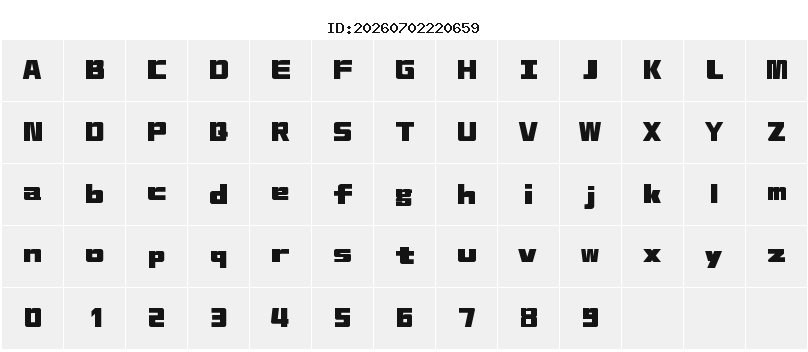
178-上首浓墨体 Preview
• Font Name: 178-上首浓墨体
• Full Font Name: 178-上首浓墨体
About 178-上首浓墨体.ttf
178-上首浓墨体.ttf is a modern, elegant sans-serif font designed for ultimate readability and visual harmony. Perfect for branding, headlines, web design, and print materials.